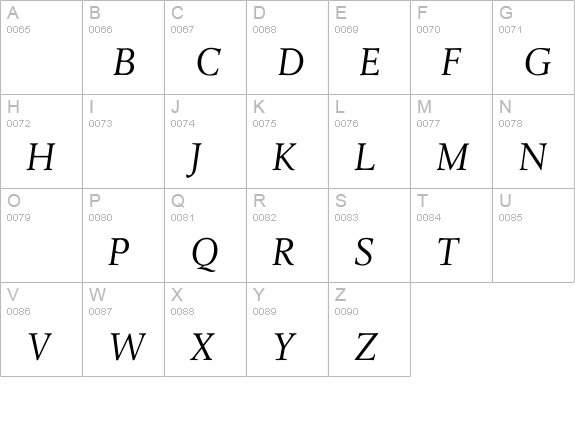
LeightonLightItalic Font Details
LeightonLightItalic font is a stunningly elegant and sophisticated typeface that exudes a sense of grace and refinement. Its delicate strokes and slanted design create a captivating visual appeal, making it the perfect choice for adding a touch of elegance to any project. This font beautifully combines the classic and the contemporary, with its sleek curves and subtle slant. It is a versatile typeface that can be used for a wide range of design purposes, from branding and logo design to invitations and headlines. LeightonLightItalic font is not only visually appealing, but it also offers exceptional legibility, ensuring that your message is conveyed effortlessly. Its carefully crafted design ensures that each letter flows seamlessly into the next, creating a harmonious and pleasing reading experience. What's even better is that LeightonLightItalic font is available for free download at FontsMarket.com. This means that you can easily access this stunning typeface and use it in your design projects without any cost. Whether you are a professional designer or a creative enthusiast, this font is a valuable addition to your collection. With its free availability, LeightonLightItalic font provides an incredible opportunity to enhance your design work without breaking the bank. So why wait? Download LeightonLightItalic font today and let its elegance and sophistication elevate your designs to new heights.